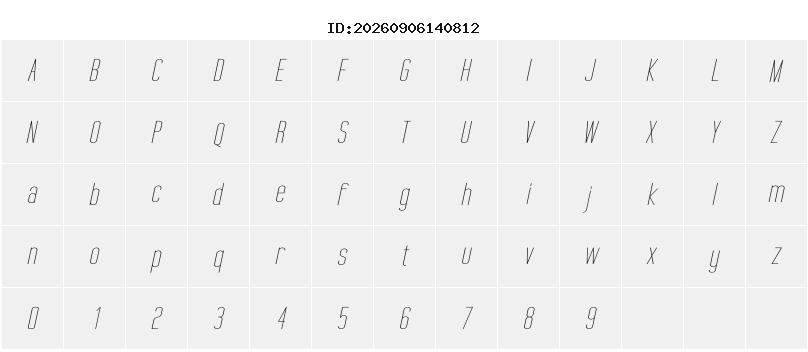
Tall Films Expanded Oblique Preview
• Font Name: Tall Films Expanded Oblique
• Full Font Name: Tall Films Expanded Oblique
• Manufacturer: Graham Meade
About Tall Films Expanded Oblique.ttf
Tall Films Expanded Oblique.ttf is a modern, elegant sans-serif font designed for ultimate readability and visual harmony. Perfect for branding, headlines, web design, and print materials.